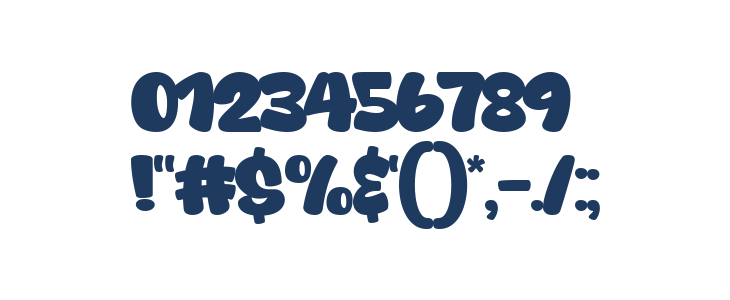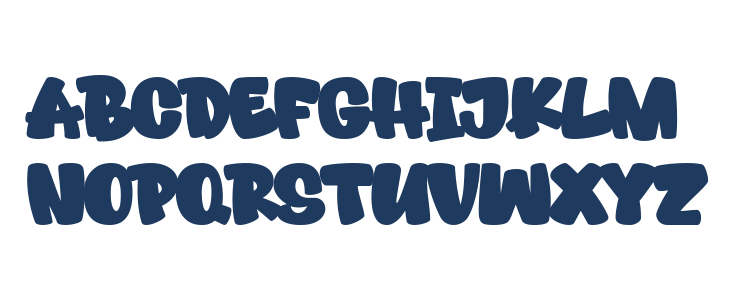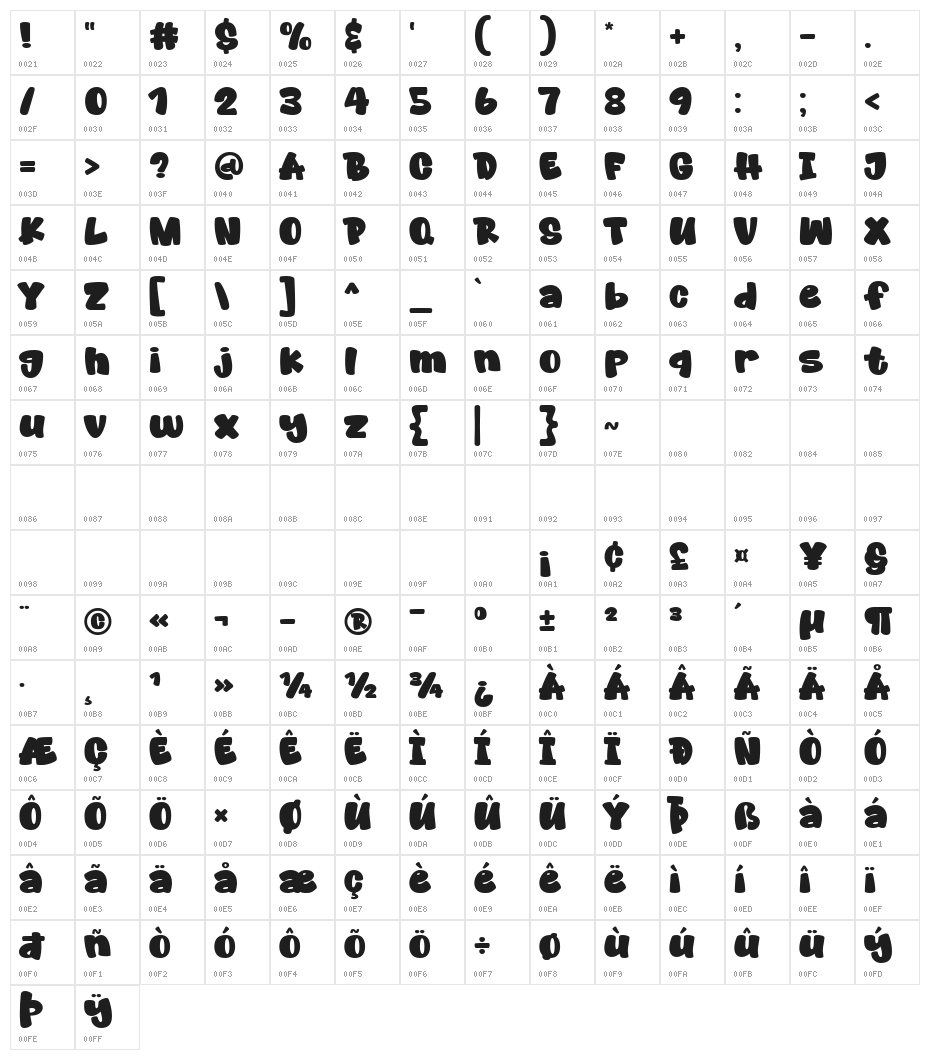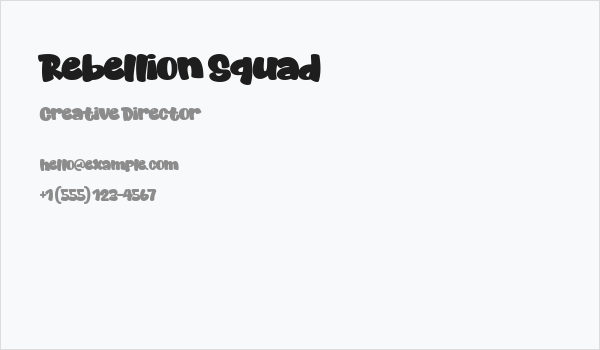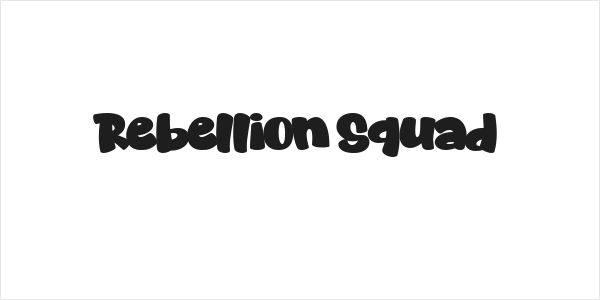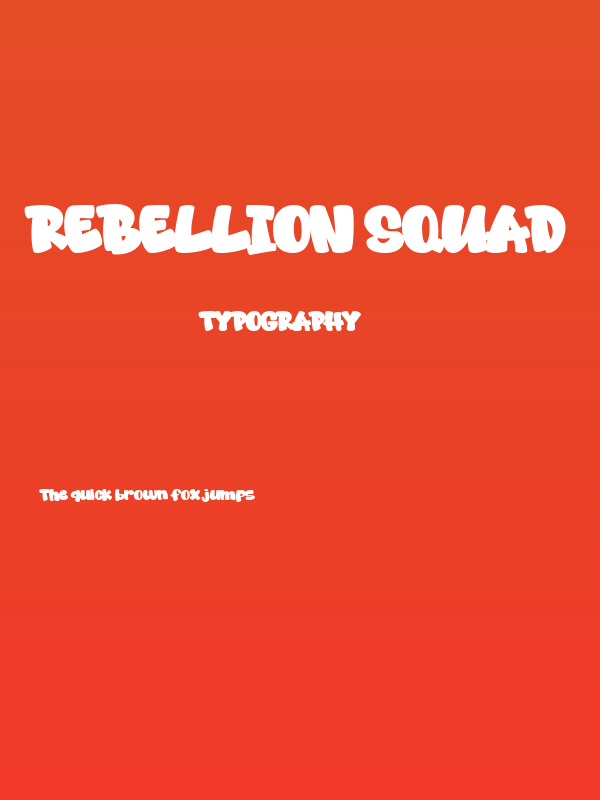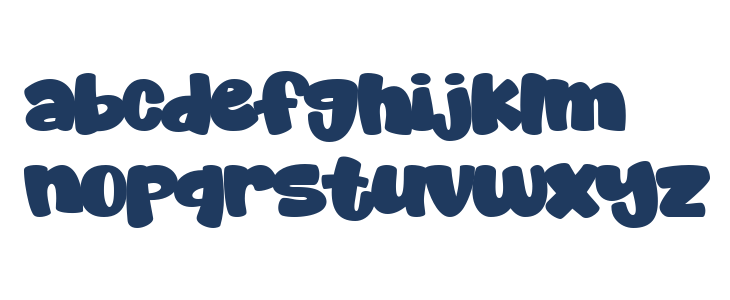
Rebellion Squad Font
| Overall Style | Playful, Cartoonish, Decorative |
| Use Case | Headlines, Logos, Posters, Children's materials |
| Proposed Projects | Children's books, comic titles, posters, party invitations, branding for fun products, and event flyers. |